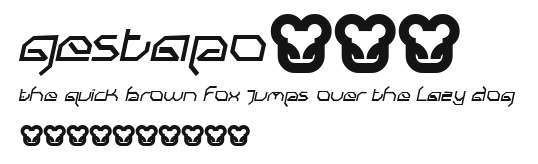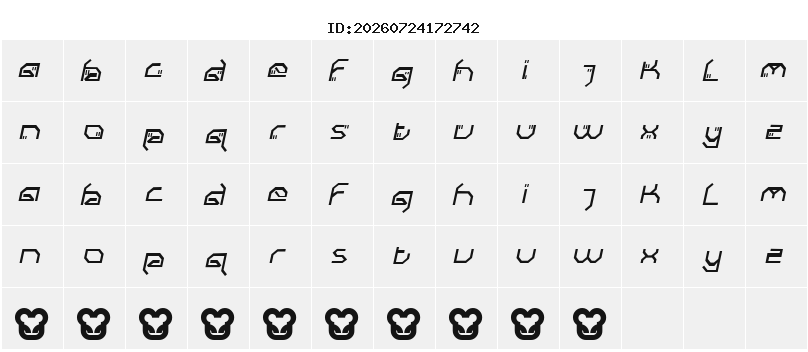
gestapo001 Preview
• Font Name: gestapo001
• Full Font Name: gestapo001 Italic
• PostScript Name: Gestapo001Italic
About gestapo001.ttf
gestapo001.ttf is a modern, elegant sans-serif font designed for ultimate readability and visual harmony. Perfect for branding, headlines, web design, and print materials.